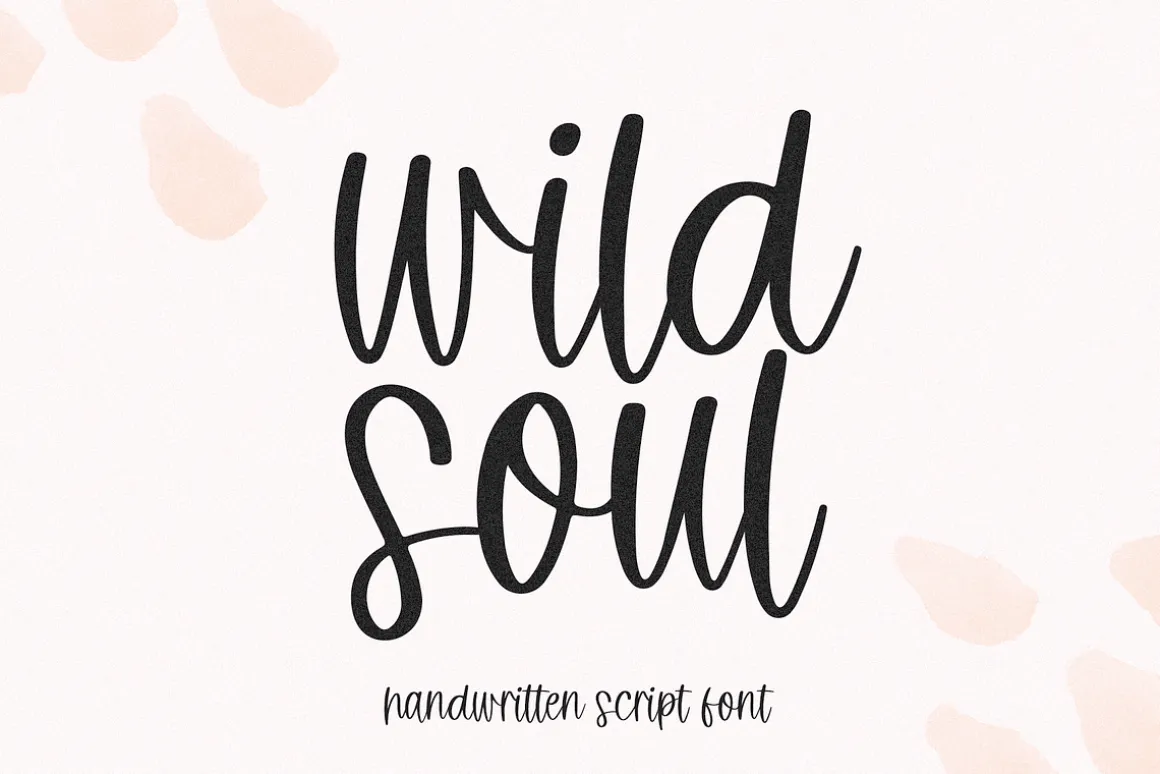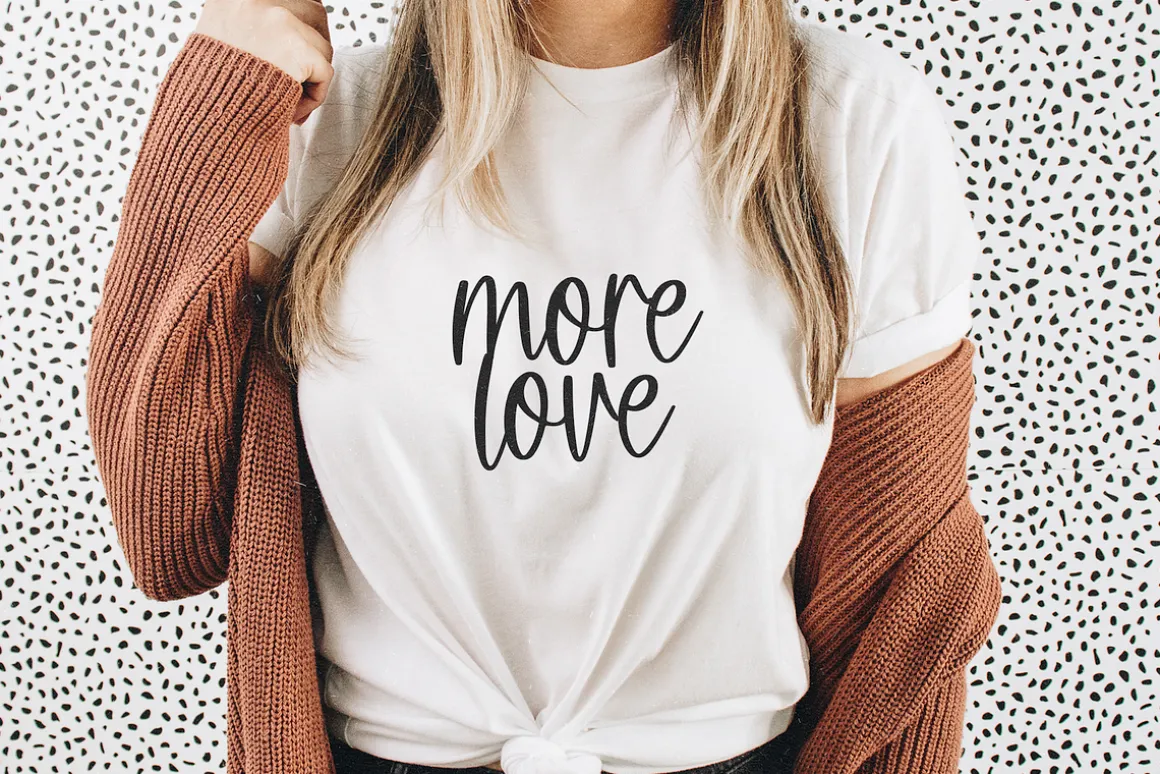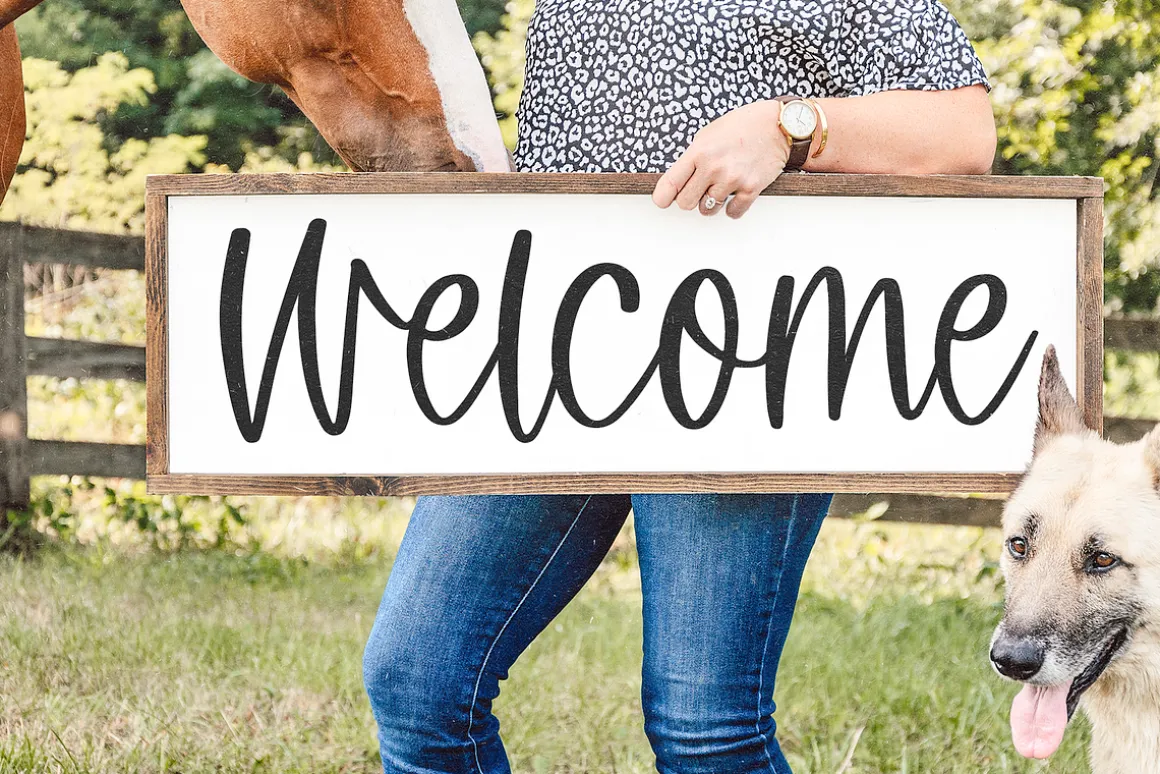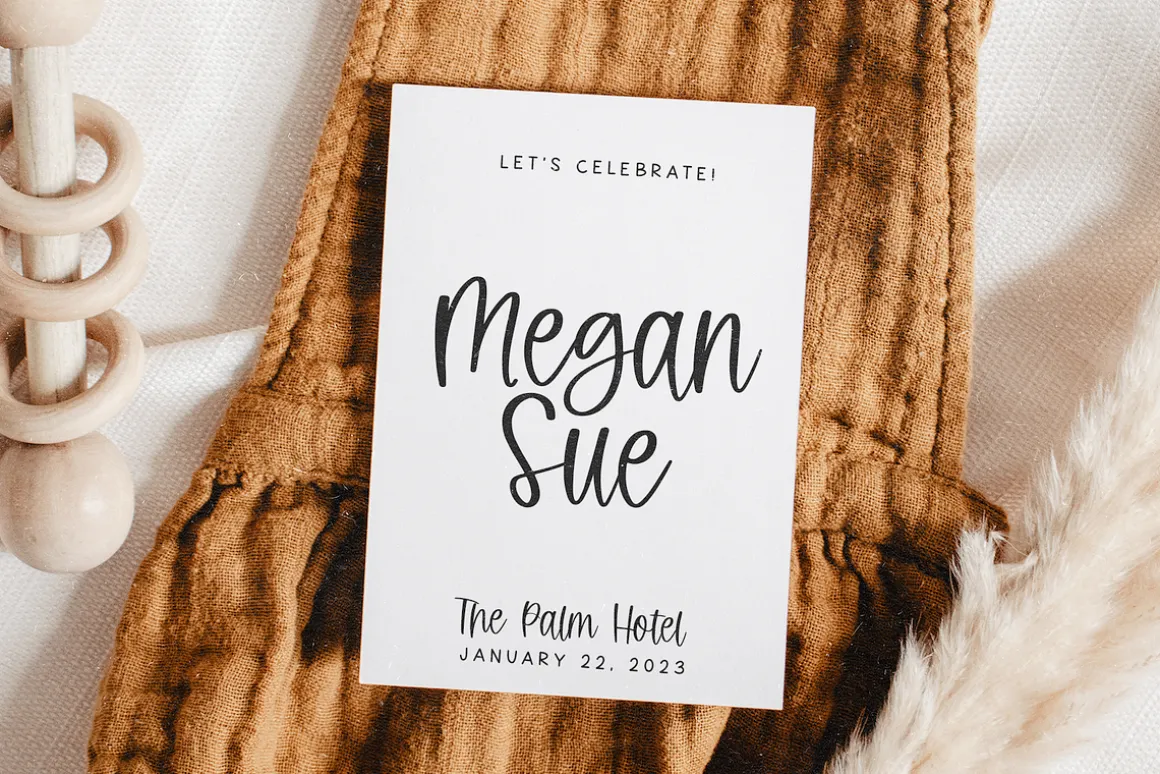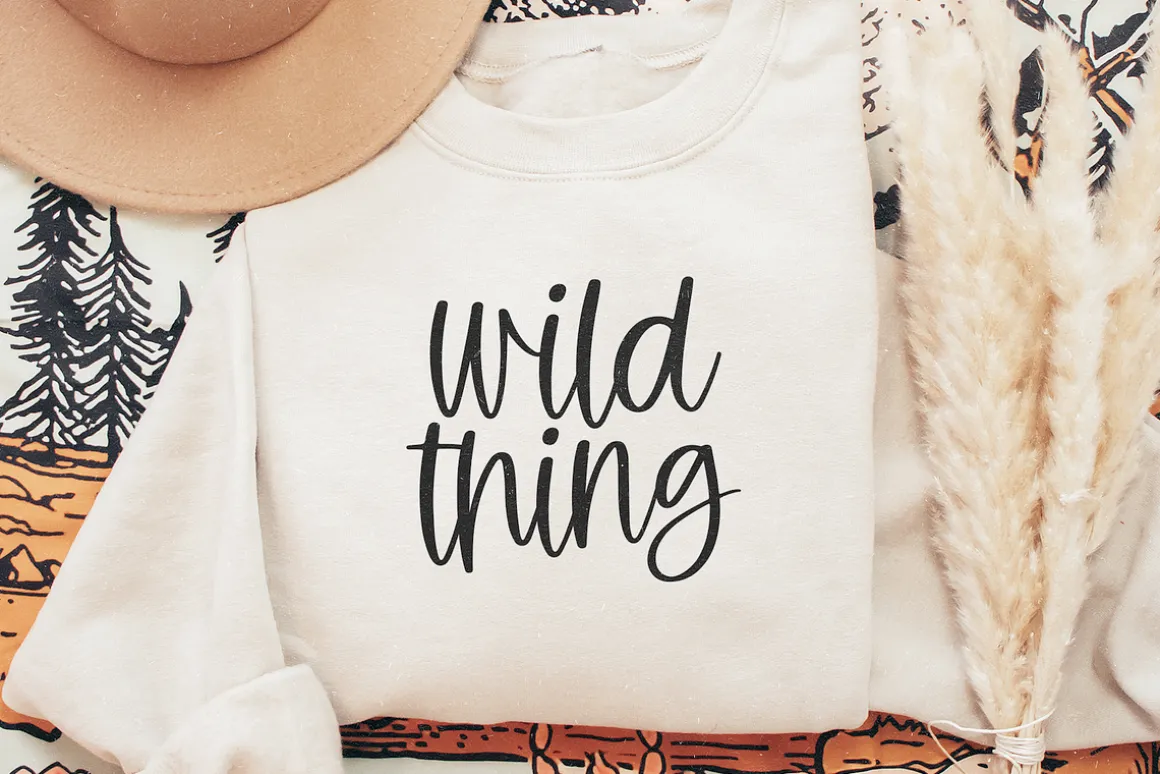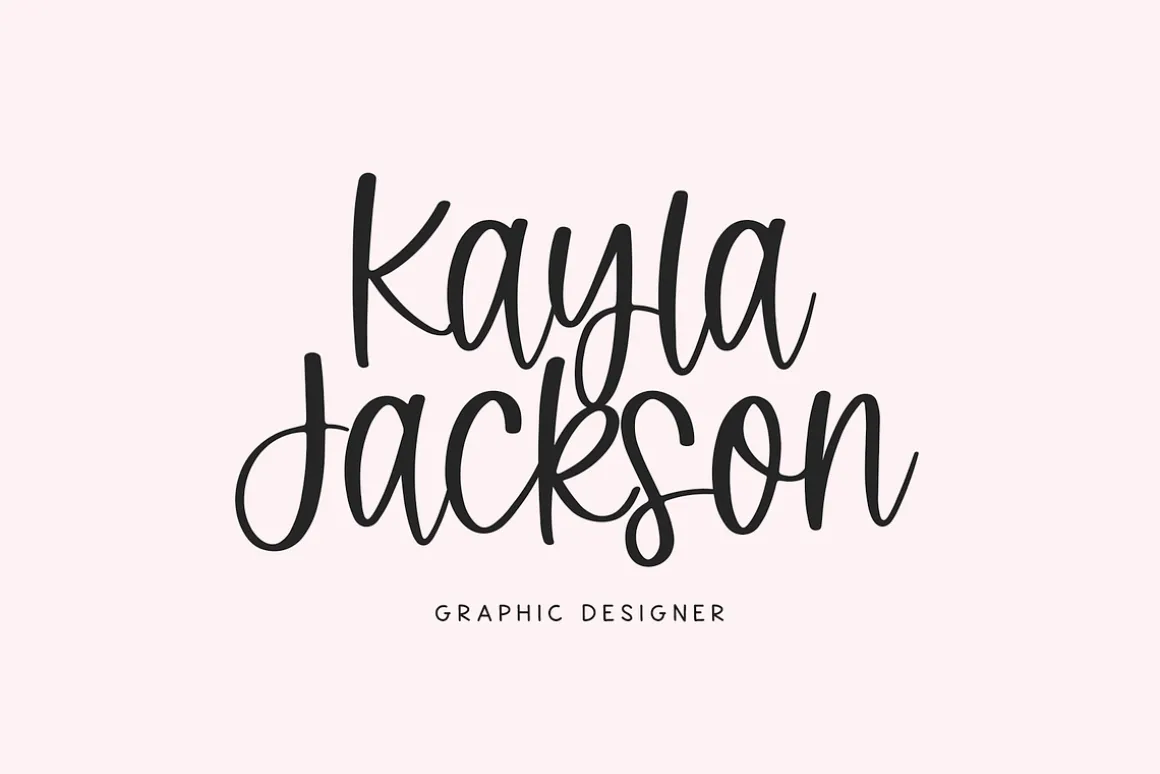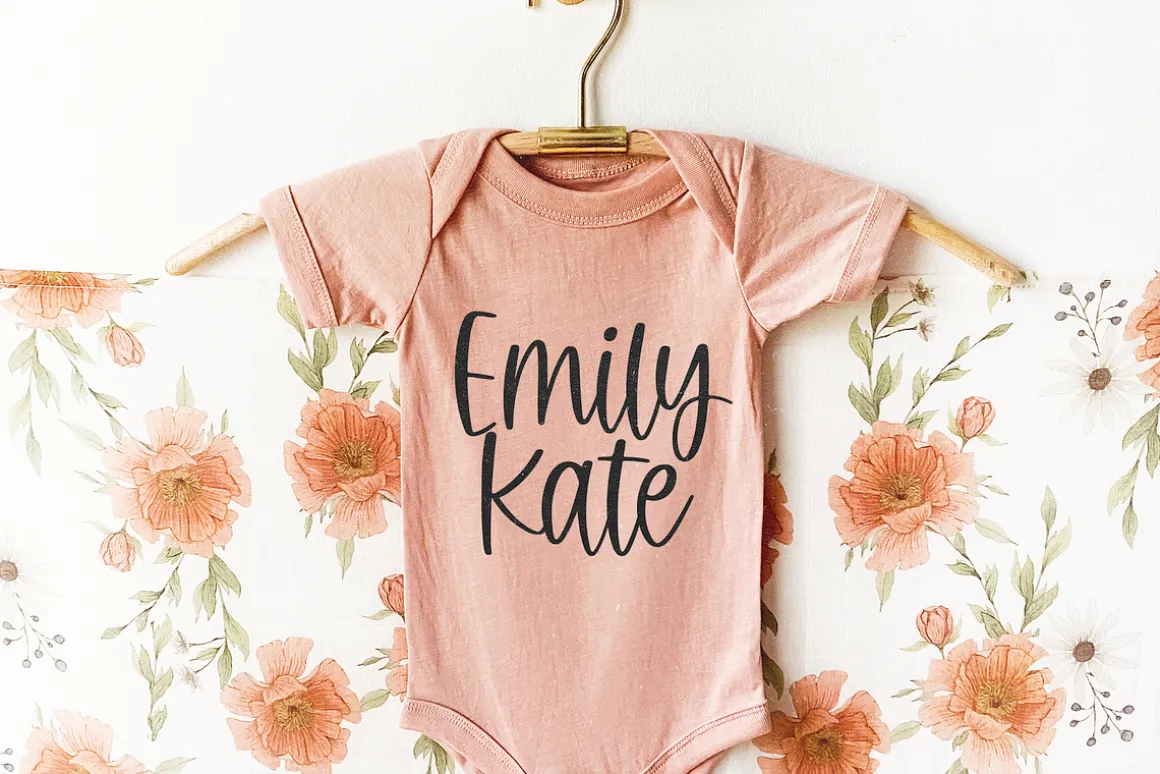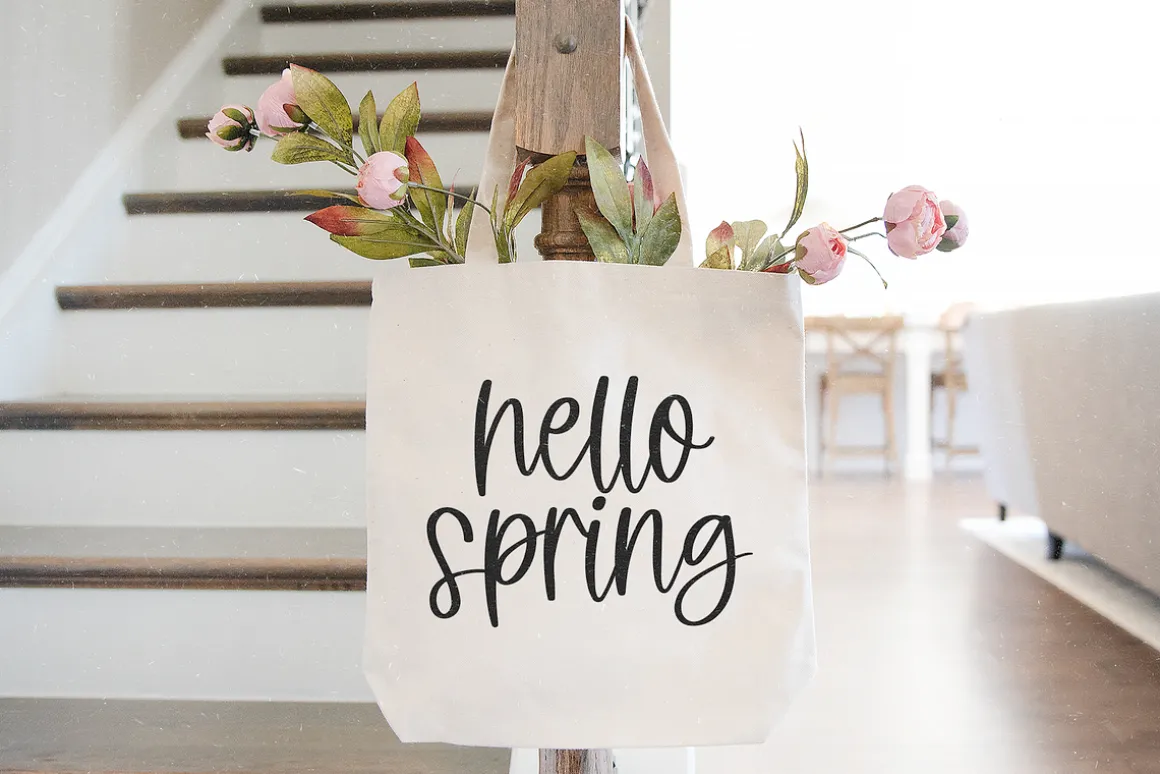
Wild Soul is a modern handwritten script font.
This font is perfect for branding, logos, stickers, shirts, craft projects, quotes, social media, posters, prints and more!
Wild Soul is a modern handwritten script font.
This font is perfect for branding, logos, stickers, shirts, craft projects, quotes, social media, posters, prints and more!